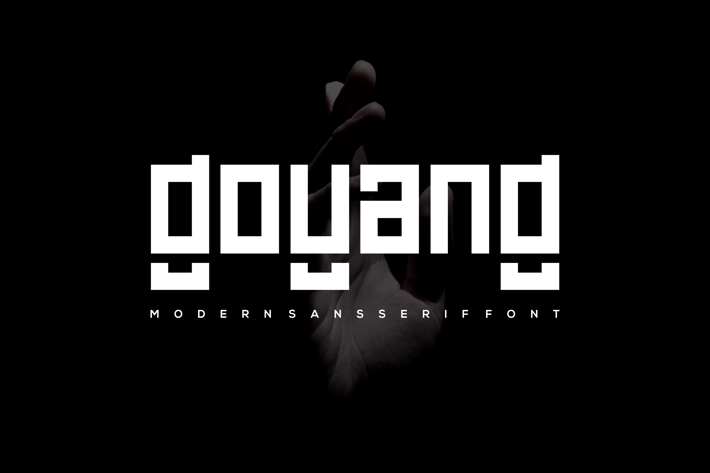
Goyang - Modern Sans Serif Font
Introducing our new product Goyang Font - Modern Sans Serif Font
Goyang Font- Modern Sans Serif Font is a bold and authentic display font. The font is suitable for any branding project like logo,
t-shirt printing, esport, and many more. outstanding in a wide range of contexts.
* Goyang Lowercase